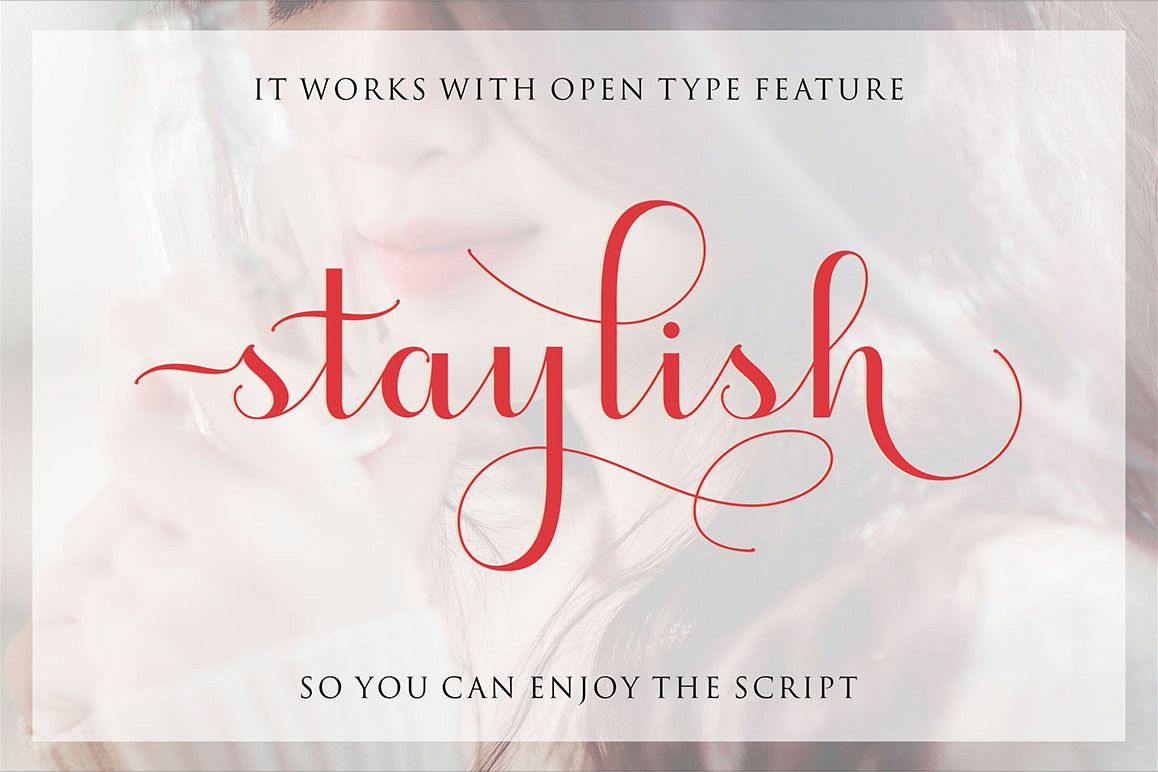
Perfect for branding and romantic invitation and Also Suitable for various purpose such as digital lettering, headings, logos, wedding invitation, t-shirt, letterhead, signage, lable, news, posters, badges, branding materials, t-shirt, print, business cards, quotes, logo, poster, and suitable for any graphic design project.
Staylish Script Upright comes as a single font file packed full of great features. It contains a full set of lower & uppercase letters, a large range of punctuation, numerals, and multilingual support. The font also contains several swashes and stylistic alternates for those who have open type capable software (e.g. Photoshop/Illustrator).Come With Lovely Features :